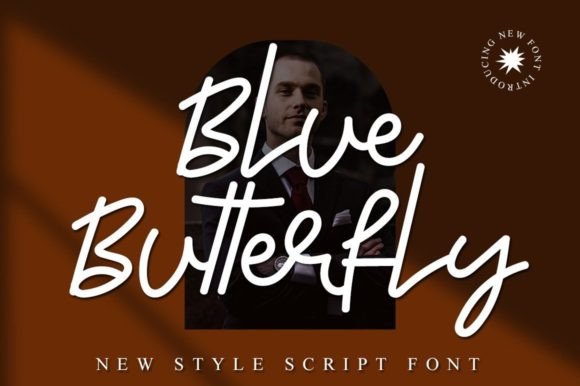
The Magical World of Blue Butterfly Font
I’ll never forget the time I was working on a project for a children’s party invitation. I had the design concept all figured out, but I was stuck on finding the perfect font. I wanted something that was fresh, clean, and elegant, yet playful and fun. That’s when I stumbled upon the Blue Butterfly font. It was like a breath of fresh air! The sweet and delicate curves of the letters instantly captured the whimsical feel I was going for. In this article, I’ll share with you why I’m obsessed with this beautiful font and how you can make the most of it in your designs.
A Personal Review of Blue Butterfly Font
- ✨ Fresh and clean design that’s perfect for a wide range of projects
- ✅ Elegant and sophisticated, yet playful and fun
- 💫 Adds a joyful touch to any design
- 👍 Highly versatile and works well in both formal and informal settings
While I absolutely adore the Blue Butterfly font, there are a few minor things to keep in mind:
- 🤔 Some of the letters may appear a bit delicate or thin when used in large sizes or on certain backgrounds
- ⚠️ Limited availability of stylistic alternates or glyphs, which may limit its use in certain design contexts
The Story Behind Blue Butterfly Font
The Blue Butterfly font was created with the intention of capturing the essence of a carefree and joyful design. The designer wanted to create a font that would evoke feelings of happiness and playfulness, while still maintaining a level of elegance and sophistication. The result is a beautiful and versatile font that’s perfect for a wide range of design projects.
| Font Name | Blue Butterfly Font |
| Author | Bill Kiss Studio |
Q: What type of projects is Blue Butterfly font best suited for?
A: Blue Butterfly font is highly versatile and can be used for a wide range of projects, from formal designs like wedding invitations to informal designs like party invitations or kids’ branding.